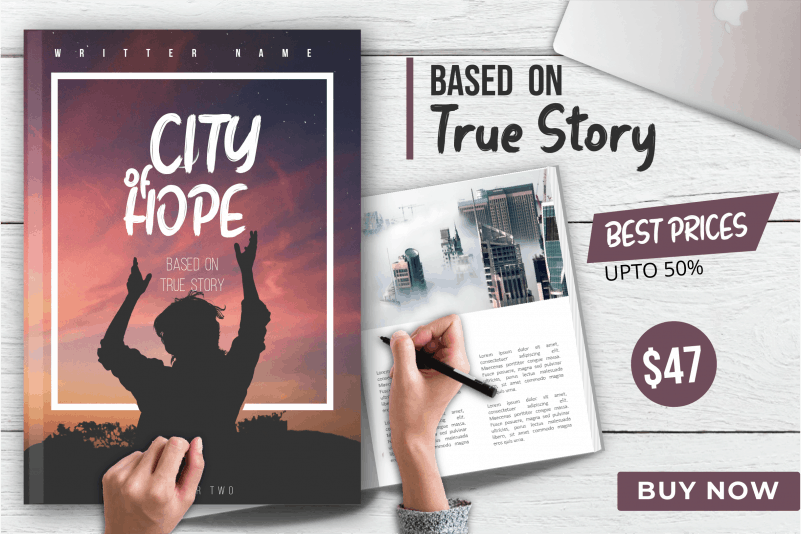
Gubrag Brush Font
Gubrag Brush Font is a display font made by hand, inspired by classic posters. This is the perfect font to use in you next designs. Applications can range from t-shirts, posters, logos to anything you can think of.